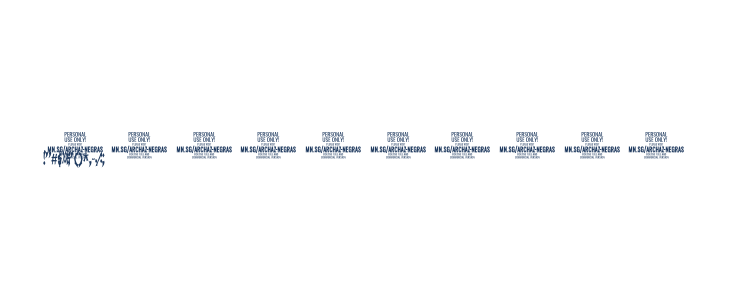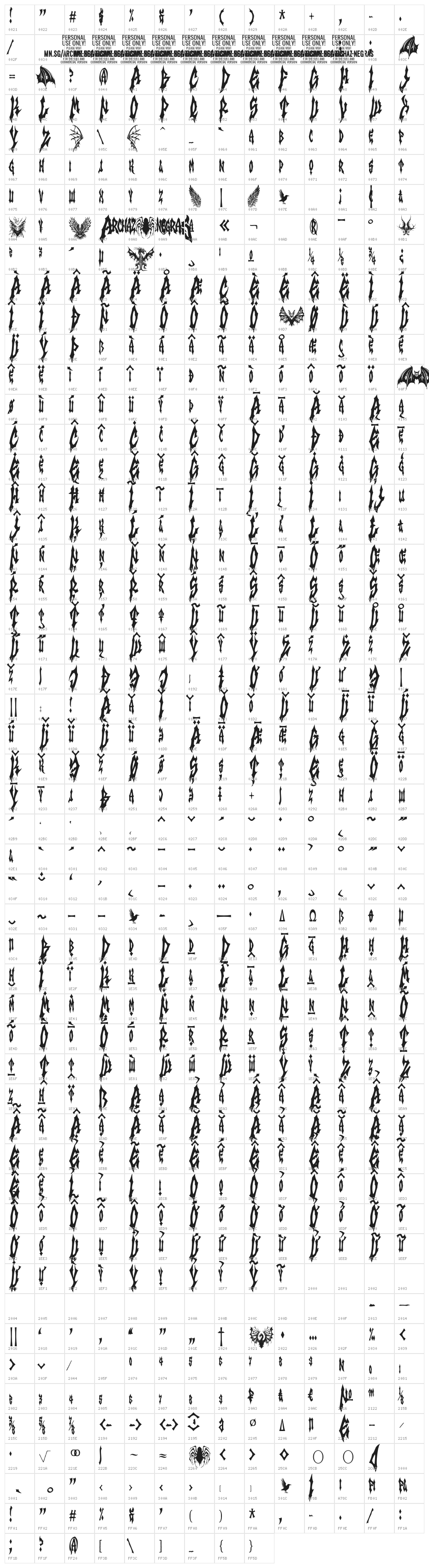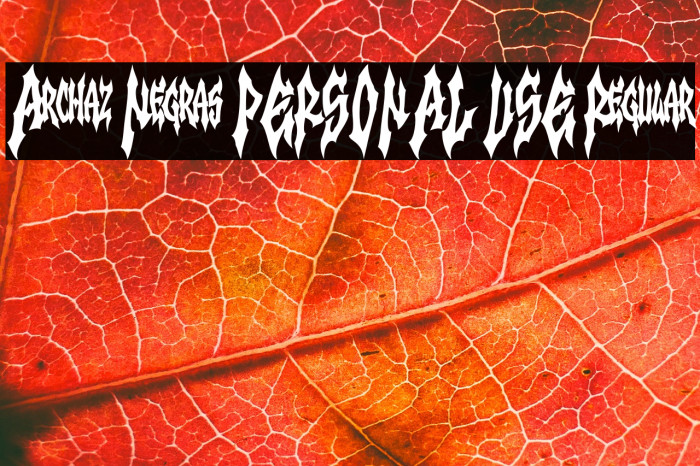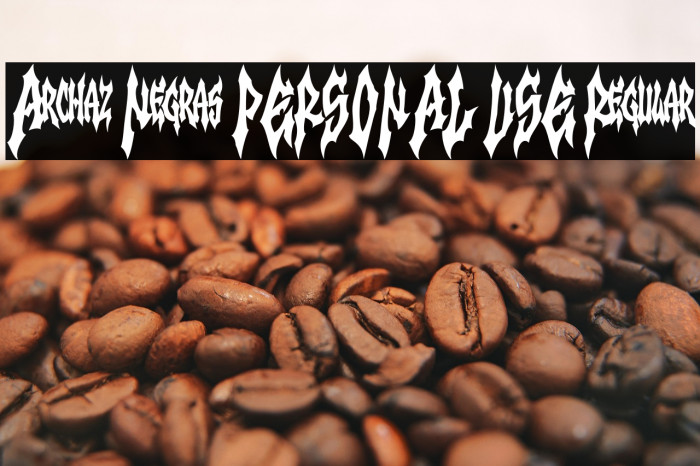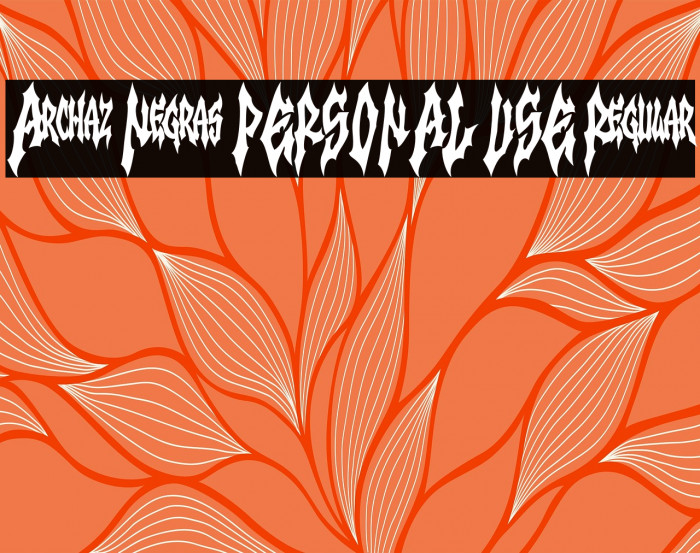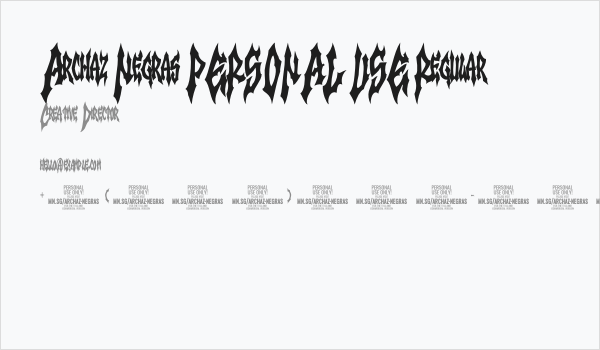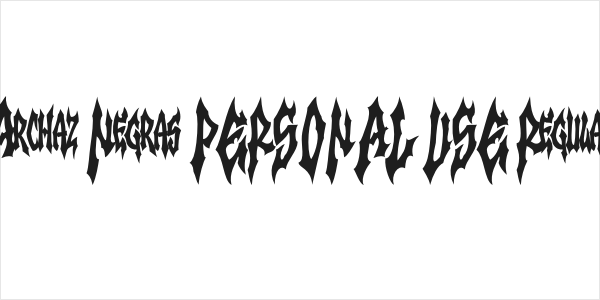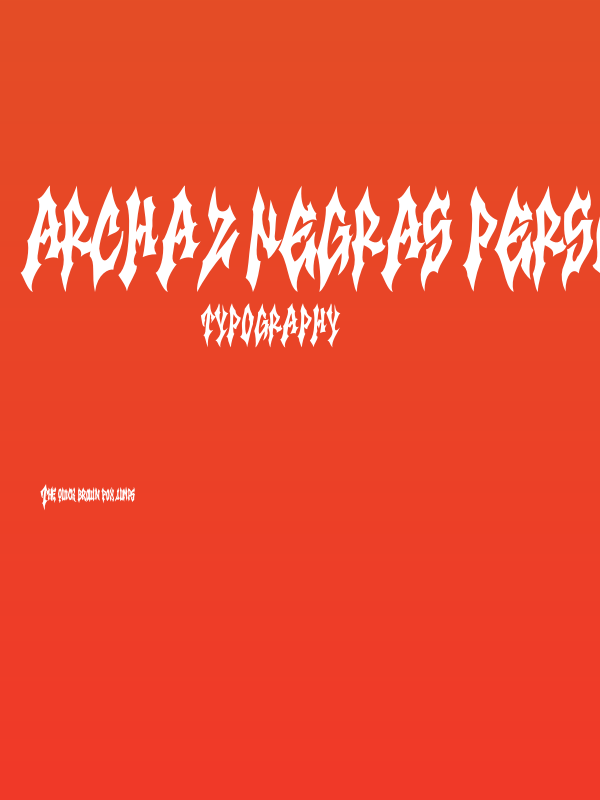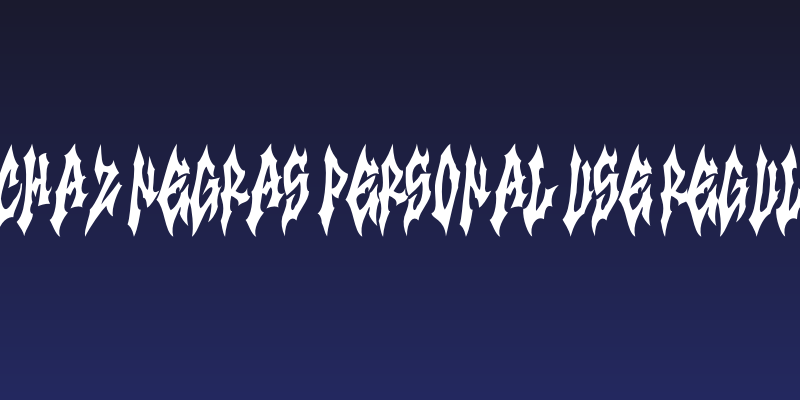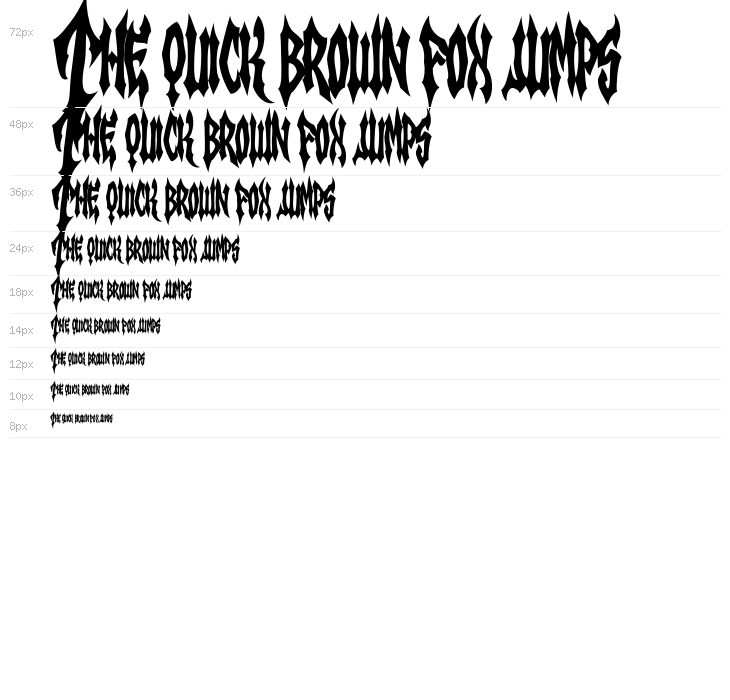
Archaz Negras PERSONAL USE Regular Font
Archaz Negras PERSONAL USE Regular Description
This font features a bold and aggressive style with sharp, angular edges and a gothic influence. The characters are highly stylized, with dramatic strokes that create a sense of movement and intensity. The uppercase letters are particularly striking, with exaggerated forms that demand attention. The lowercase letters maintain the same boldness, ensuring consistency across the typeface. Numbers and special characters are equally dynamic, making this font suitable for impactful designs. The overall appearance is reminiscent of medieval or fantasy themes, making it ideal for projects that require a strong visual presence.
| Overall Style | Gothic, Dramatic, Fantasy |
| Proposed Projects | Ideal for fantasy-themed posters, video game titles, heavy metal band logos, and any project requiring a bold, dramatic typeface. |